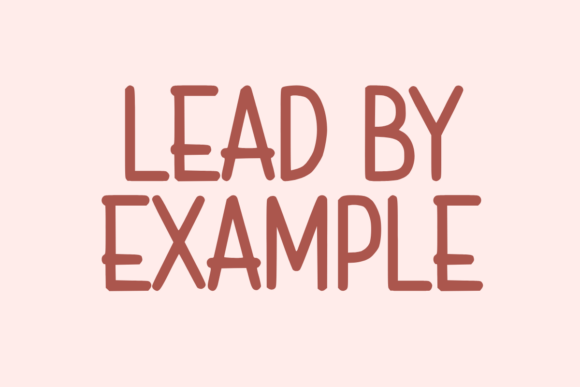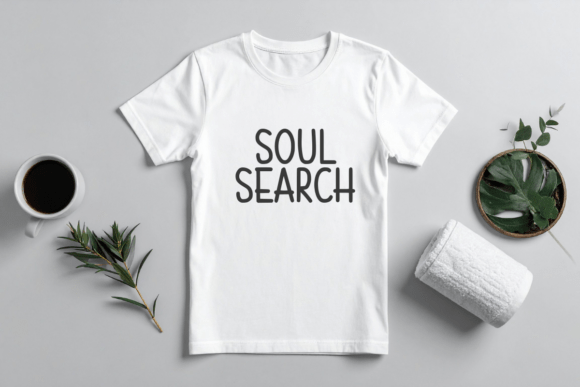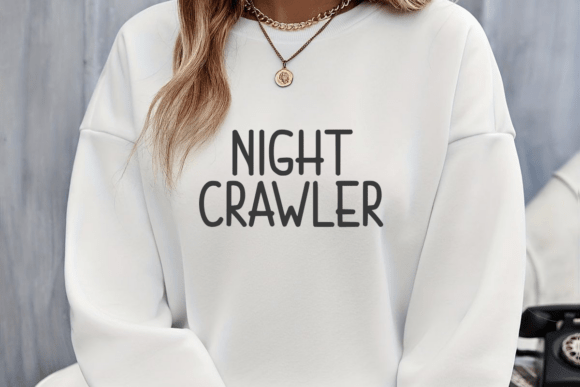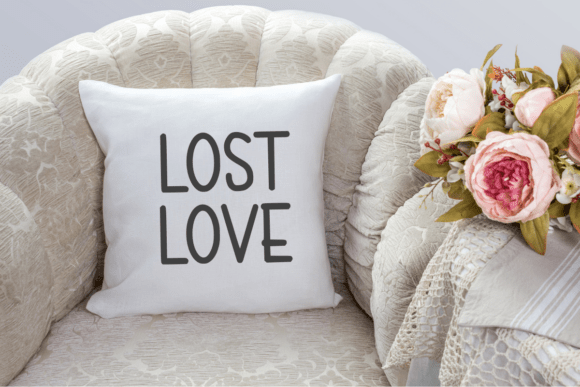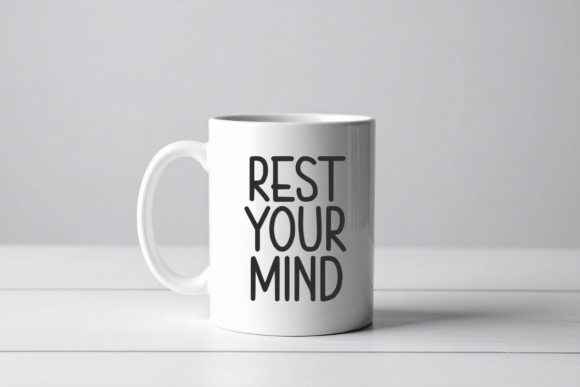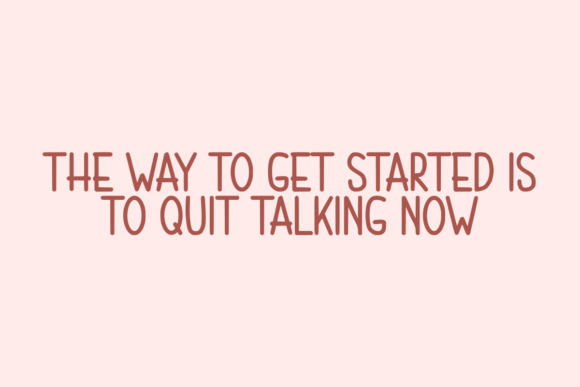
Easter Sticker Font: A Cute and Friendly Typeface for Your Creative Projects
Are you looking for a font that can add a touch of warmth and playfulness to your designs? Look no further than the Easter Sticker Font! This adorable sans serif handwriting font is designed to bring a soft, friendly, and natural look to your craft projects, planners, stickers, and more.
What Makes Easter Sticker Font So Special?
Easter Sticker Font is a unique typeface that is perfect for designers and crafters who want to add a personal touch to their work. Its soft and friendly appearance makes it ideal for projects that require a warm and inviting feel. Whether you’re creating kids’ worksheets, classroom printables, or DIY designs, this font is sure to bring a smile to your audience’s faces.
Easter Sticker Font is a versatile typeface that can be used for a wide range of projects, including:
- Craft projects: Add a personal touch to your craft projects, such as scrapbooking, card making, and paper crafting.
- Planners and journals: Use Easter Sticker Font to add a playful touch to your planners, bullet journals, and daily journals.
- Stickers and labels: Create adorable stickers and labels for kids’ projects, classroom activities, and DIY designs.
- Kids’ worksheets and coloring pages: Make learning fun with Easter Sticker Font’s playful and engaging appearance.
- Greeting cards and invitations: Add a warm and friendly touch to your greeting cards, invitations, and party decorations.
Why Choose Easter Sticker Font?
There are many reasons why Easter Sticker Font is a great choice for designers and crafters:
- Unique and playful appearance: Easter Sticker Font has a one-of-a-kind appearance that is sure to stand out in any design.
- Easy to read: Despite its playful appearance, Easter Sticker Font is easy to read and understand, making it perfect for body text and captions.
- Versatile: Easter Sticker Font can be used for a wide range of projects, from kids’ projects to adult designs.
- Handcrafted feel: Easter Sticker Font brings a warm, handcrafted feel to any design, making it perfect for crafty projects and DIY designs.
Tips for Using Easter Sticker Font
Here are a few tips for getting the most out of Easter Sticker Font:
- Pair with other fonts: Easter Sticker Font pairs well with other sans serif fonts, as well as script fonts and bold fonts.
- Use for headings and titles: Easter Sticker Font is perfect for headings and titles, where its playful appearance can really shine.
- Add embellishments: Consider adding embellishments, such as stickers or washi tape, to your designs to really make them pop.
Easter Sticker Font is a unique and playful typeface that is perfect for designers and crafters who want to add a personal touch to their work. Its soft and friendly appearance makes it ideal for a wide range of projects, from kids’ worksheets to DIY designs. With its versatility, ease of use, and handcrafted feel, Easter Sticker Font is a great choice for anyone looking to add a touch of warmth and playfulness to their designs.